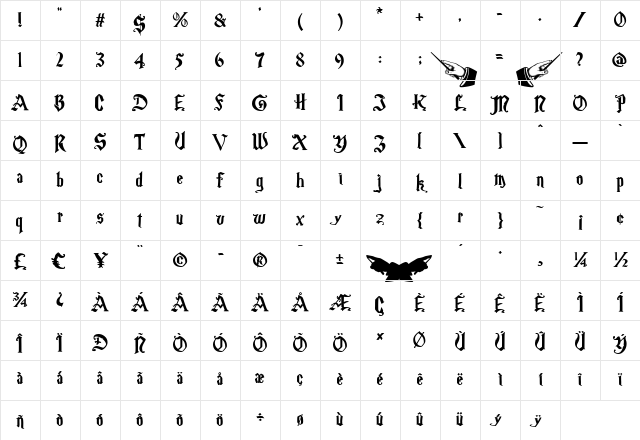
Magic School One Regular Free Font
Magic School One Regular
Design Context for Magic School One
Magic School One is a composed and adaptable typeface that performs quietly and consistently across a wide range of design contexts.